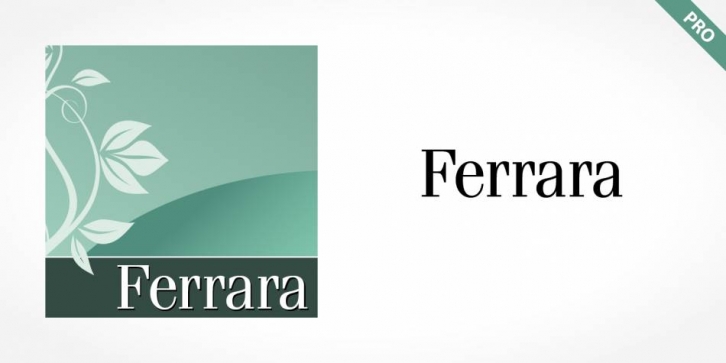
Ferrara Pro is a serif font family. This typeface has eight styles and was published by SoftMaker.
Ferrara Pro was influenced by the traditional designs of Didot, Bodoni, and Ibarra. It displays the fine serifs of a Bodoni but blends such characteristics with a contemporary structural style. Ferrara Pro is perfect for applications requiring the economical use of space.